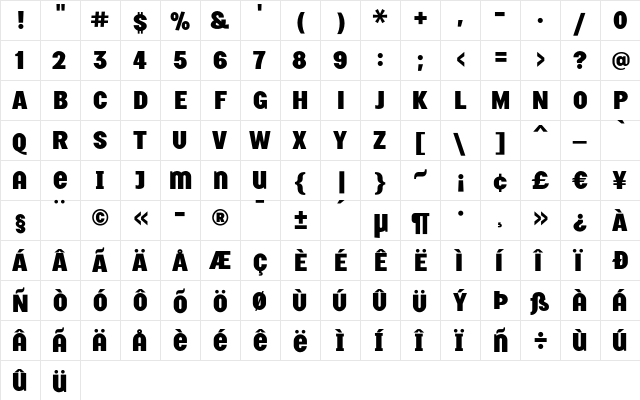
MalmoSans Headline Regular
Design Context for MalmoSans Headline Typeface
MalmoSans Headline offers clean, dependable letterforms without strong stylistic allegiance, making it a practical choice for designers who need flexibility.
Pro Tip: Use MalmoSans Headline in both headline and body roles to test its range before committing to a single application.